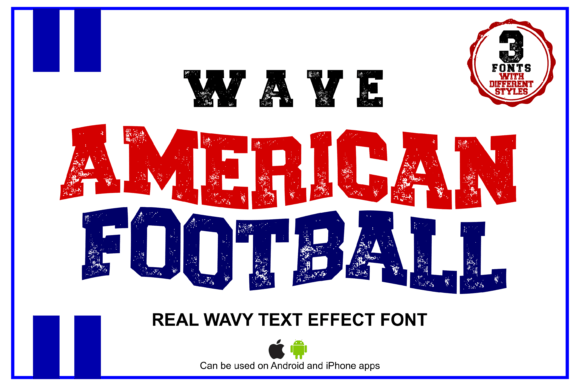
Introducing Wave American Football Font, a powerhouse in the world of display fonts, crafted with grit and casual charm. Its friendly vibe and three distinct styles make it a versatile companion for a wide range of creative endeavors.
For those seeking a font that exudes boldness and strength, Wave American Football delivers. Its thick strokes and sharp edges convey a sense of power and determination, perfect for making a statement in logos, posters, and headlines.
But beneath its rugged exterior lies a hidden grace. The font's smooth curves and playful details add a touch of elegance and sophistication, making it suitable for more delicate designs as well. Its versatility extends from the gridiron to the runway, from sports-themed projects to fashion-forward invitations.
Whether you're seeking to ignite passion in your branding, add a touch of retro charm to your designs, or simply express your individuality, Wave American Football is the font for you. Its limitless possibilities will transform your creative ideas into extraordinary works of art.
And if you're looking to make a statement on social media, Wave American Football is your perfect ally. Its distinct character will make your Instagram posts, Facebook updates, and Pinterest boards stand out from the crowd, captivating your audience and leaving a lasting impression.
Don't settle for ordinary fonts that blend into the background. Unleash the power of Wave American Football today and let your creativity soar. Its energy and versatility will turn heads and leave a lasting impression, whether you're designing for print or the digital realm.